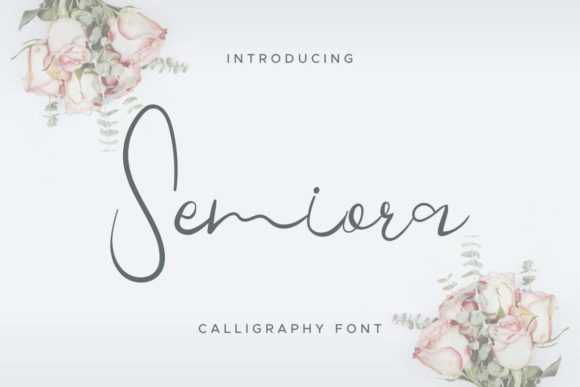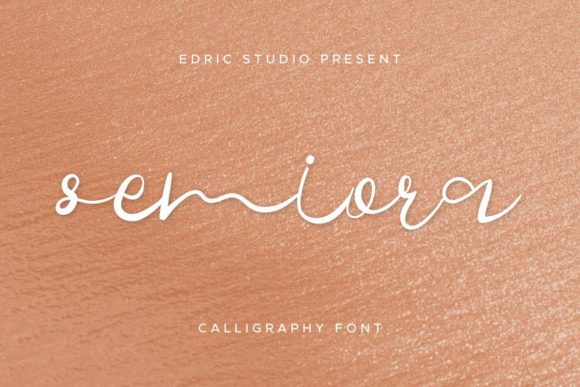
About Semiora Font
Semiora is a charming and elegant handwritten font that exudes sophistication and beauty. Its versatile style makes it a perfect fit for various design projects, adding a touch of refinement and personalization to any creation. Here are some ways you can use Semiora font to elevate different design contexts:
1. Wedding Invitations: Create exquisite and romantic wedding invitations with Semiora font, setting the tone for a memorable and special event.
2. Thank You Cards: Design heartfelt and elegant thank you cards that convey gratitude with a touch of grace using Semiora font.
3. Quotes and Greeting Cards: Craft beautiful and meaningful quotes and greeting cards with Semiora font, capturing the essence of the message with its charming strokes.
4. Logos and Branding: Establish a distinct and memorable brand identity by incorporating Semiora font into your logos and branding materials, adding a handwritten touch of elegance.
5. Business Cards: Add a touch of sophistication to your business cards with Semiora font, leaving a lasting impression on potential clients.
6. Social Media Graphics: Elevate your social media presence with visually appealing graphics featuring Semiora font, creating a cohesive and elegant look.
7. Stationery Art: Create stunning stationery art and letterheads with Semiora font, showcasing professionalism and personal flair.
8. Book Titles and Covers: Design captivating book titles and covers with Semiora font, adding a touch of elegance to literary works.
9. Personal Branding: Use Semiora font for personal branding, such as signatures and watermarks, to add a touch of uniqueness and refinement.
10. Artistic Projects: Incorporate Semiora font into artistic projects like calligraphy pieces and illustrations to add a touch of charm and elegance.
11. Packaging Design: Elevate product packaging with Semiora font, making products appear luxurious and sophisticated.
12. Event Invitations: Design invitations for special events and occasions using Semiora font, creating an elegant and inviting atmosphere.
Semiora font’s charming and elegant demeanor, combined with its versatility, makes it a delightful choice for various design projects. Whether used for formal or informal occasions, branding, or artistic endeavors, Semiora font will add a touch of beauty and refinement to your creations. Embrace the charm of this font and let it enhance your designs with its timeless and elegant appeal.